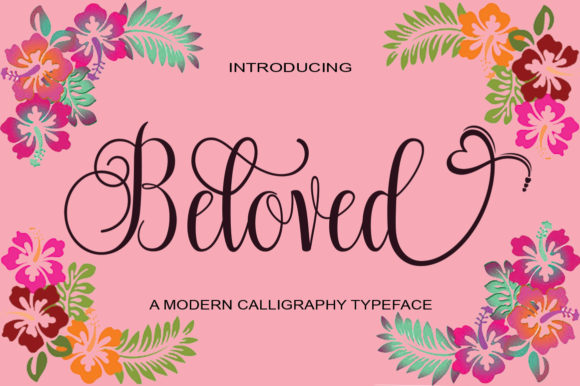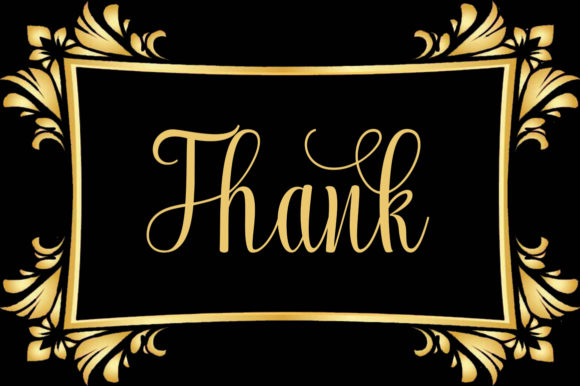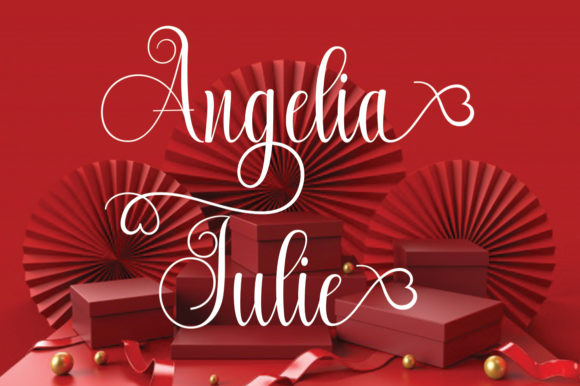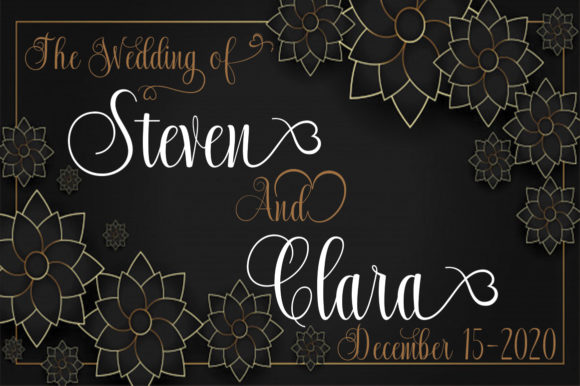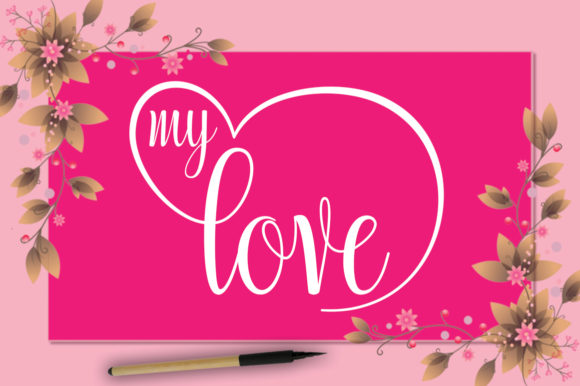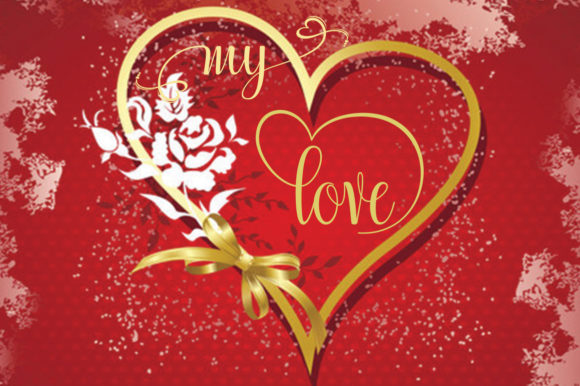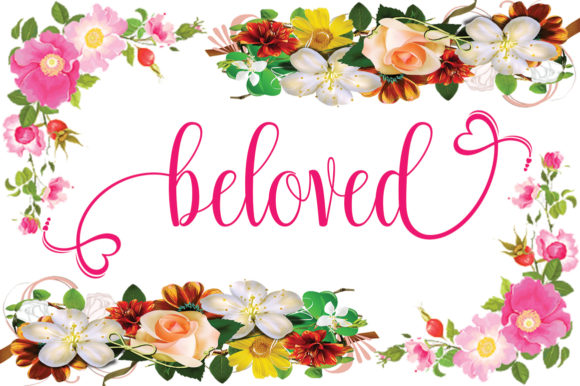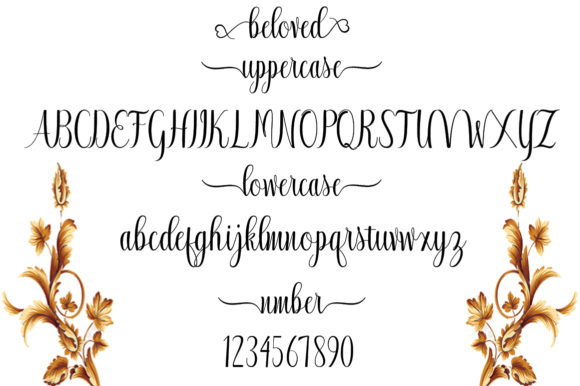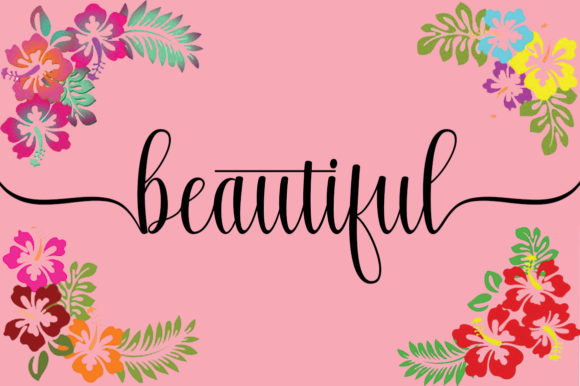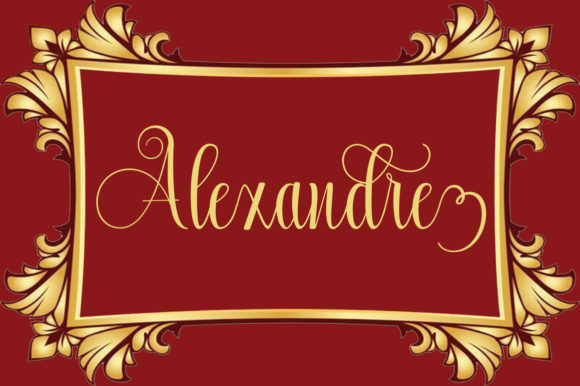
Beloved Font
About Beloved Font
Beloved is a cute and casual handwritten font with an incredibly friendly feel. It features gorgeous swashes and ligatures that make this script incredibly versatile.
Whether you’re looking for fonts for Instagram or calligraphy scripts for DIY projects, Beloved will turn any creative idea into a true piece of art!